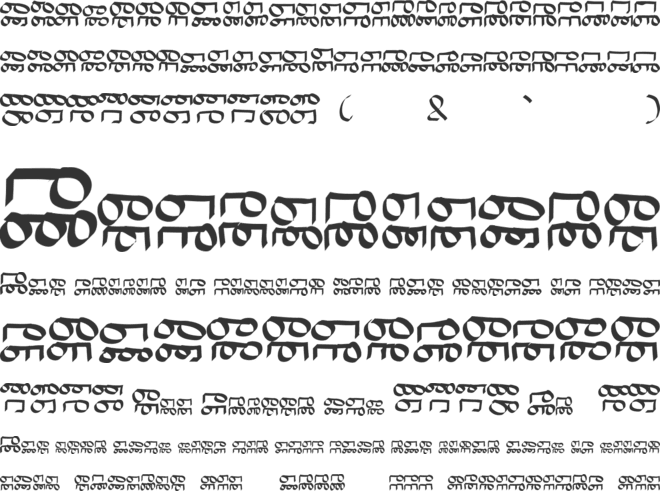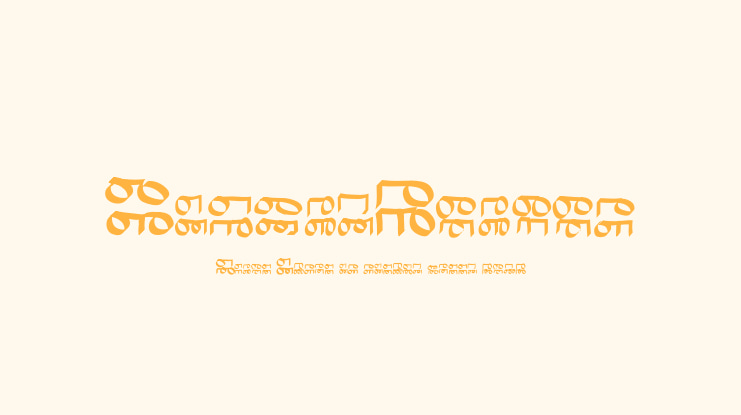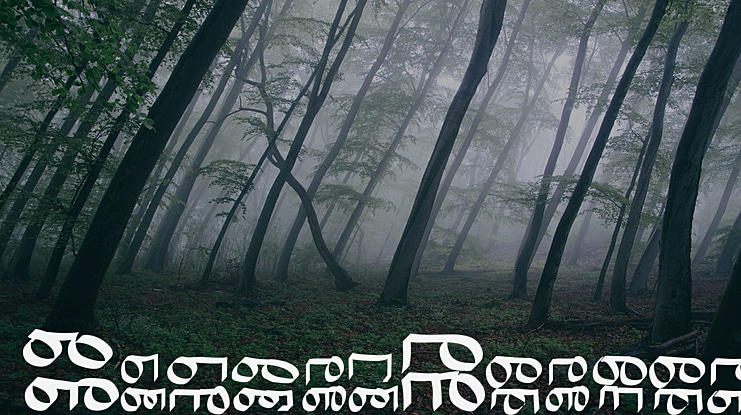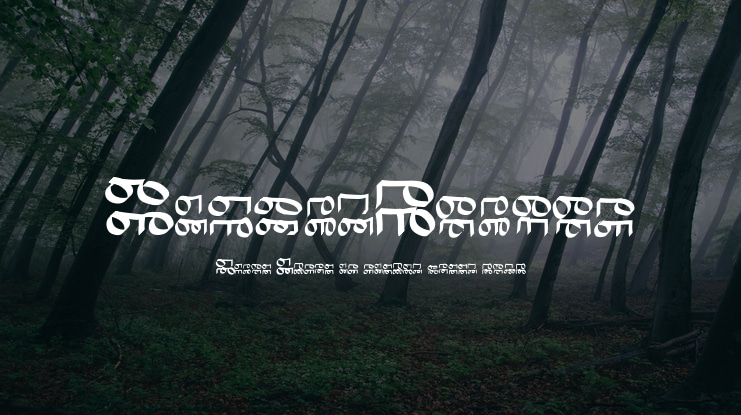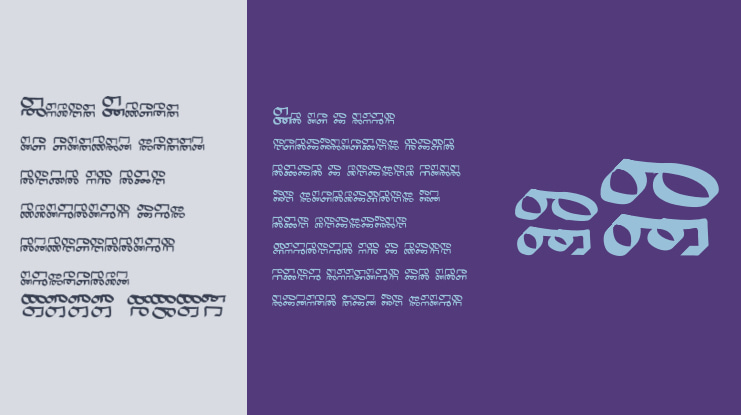
BinaryVerges Font
Albert Verges
This is a binary code font. There is a automatic translation to binary code. a = 000001 b 000010 .. and so on.
Albert Vergés is an artist who always use the binary code ins his art. He decided to make this font, as he said, to make art directly from a text editor.